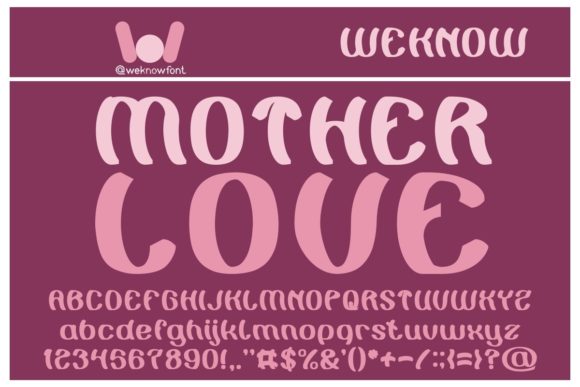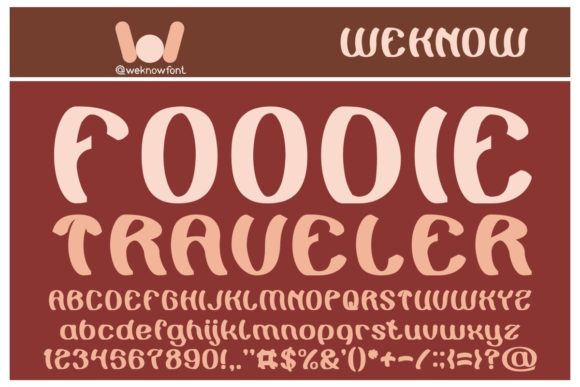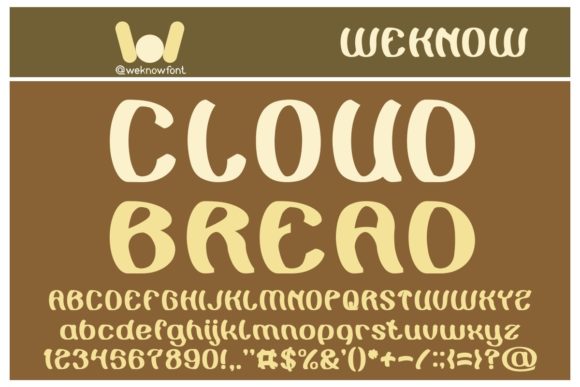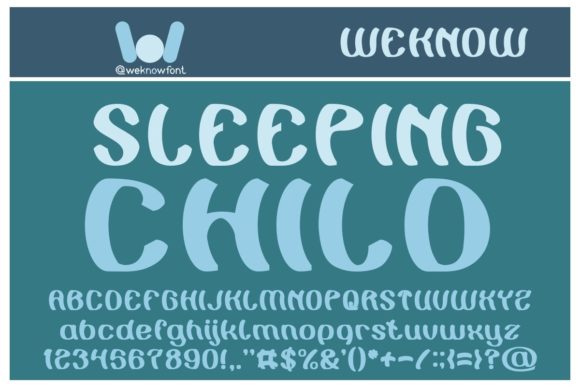
Introduction to Painting the Light Font
Painting the light is a fancy display font suitable for logos, logotypes, headlines, corporate identity, brand identity, apparel industry, posters, music, movies, games, magazines, books, comics, cartoons, YouTube, Instagram, websites, or any of your creative design projects.